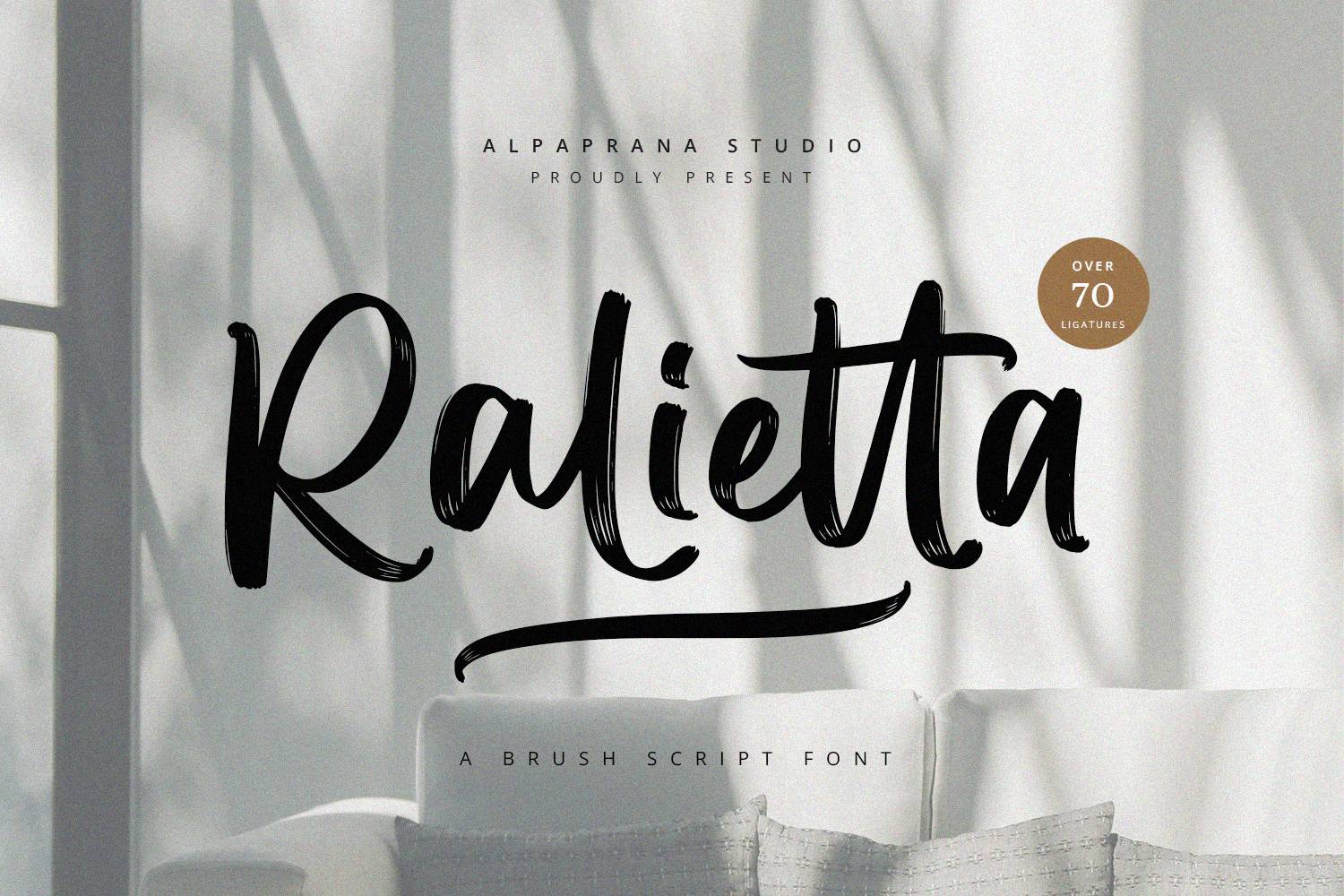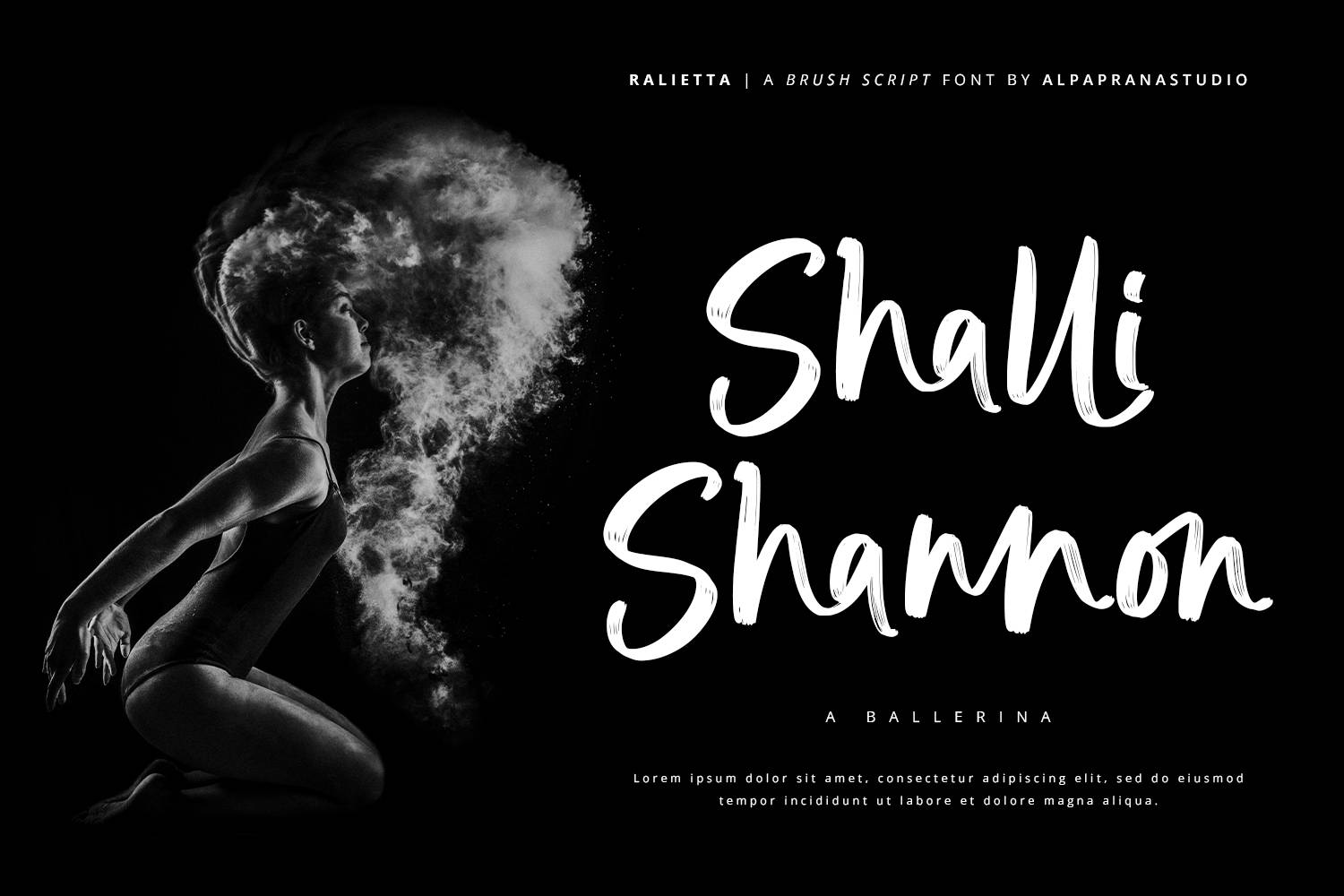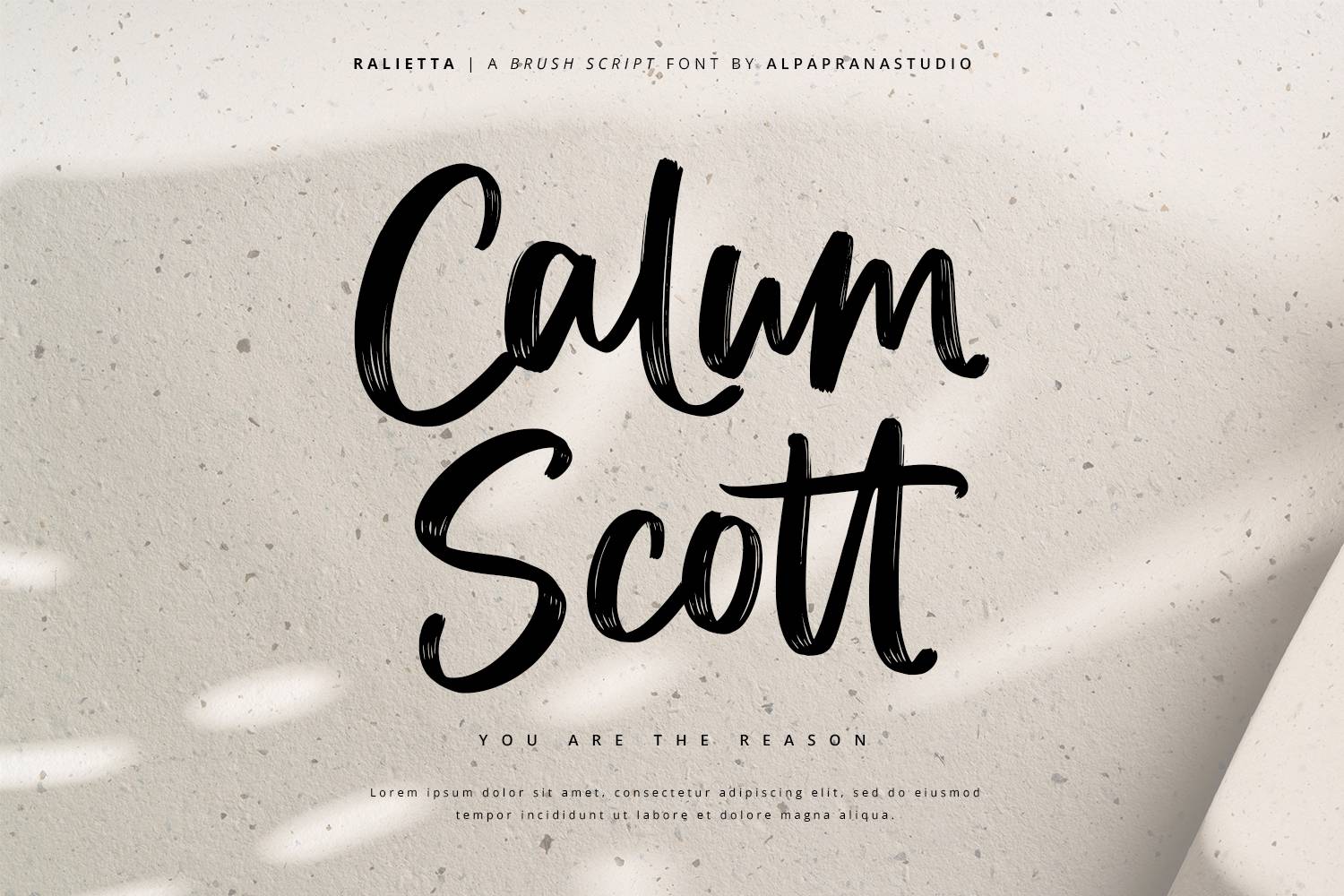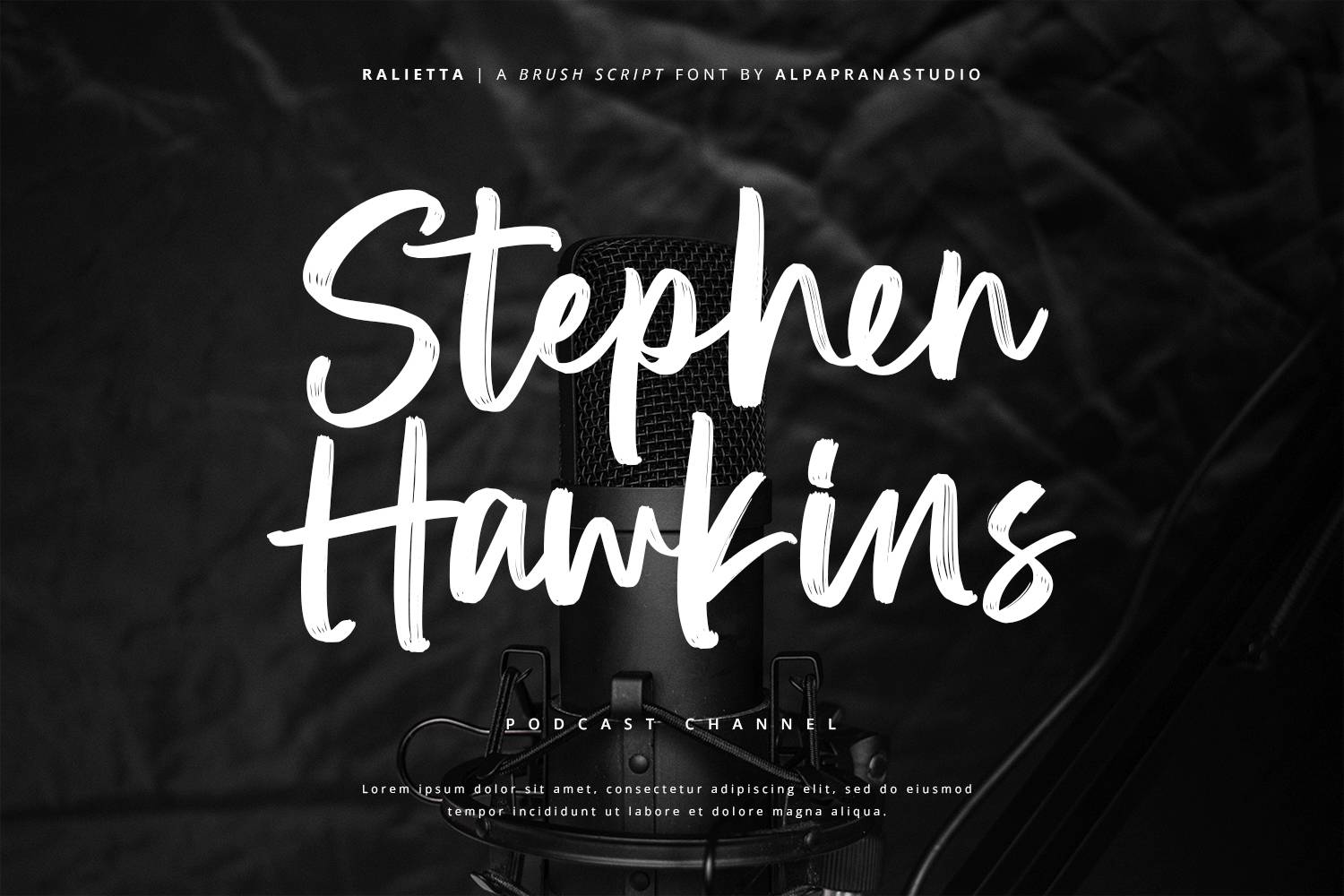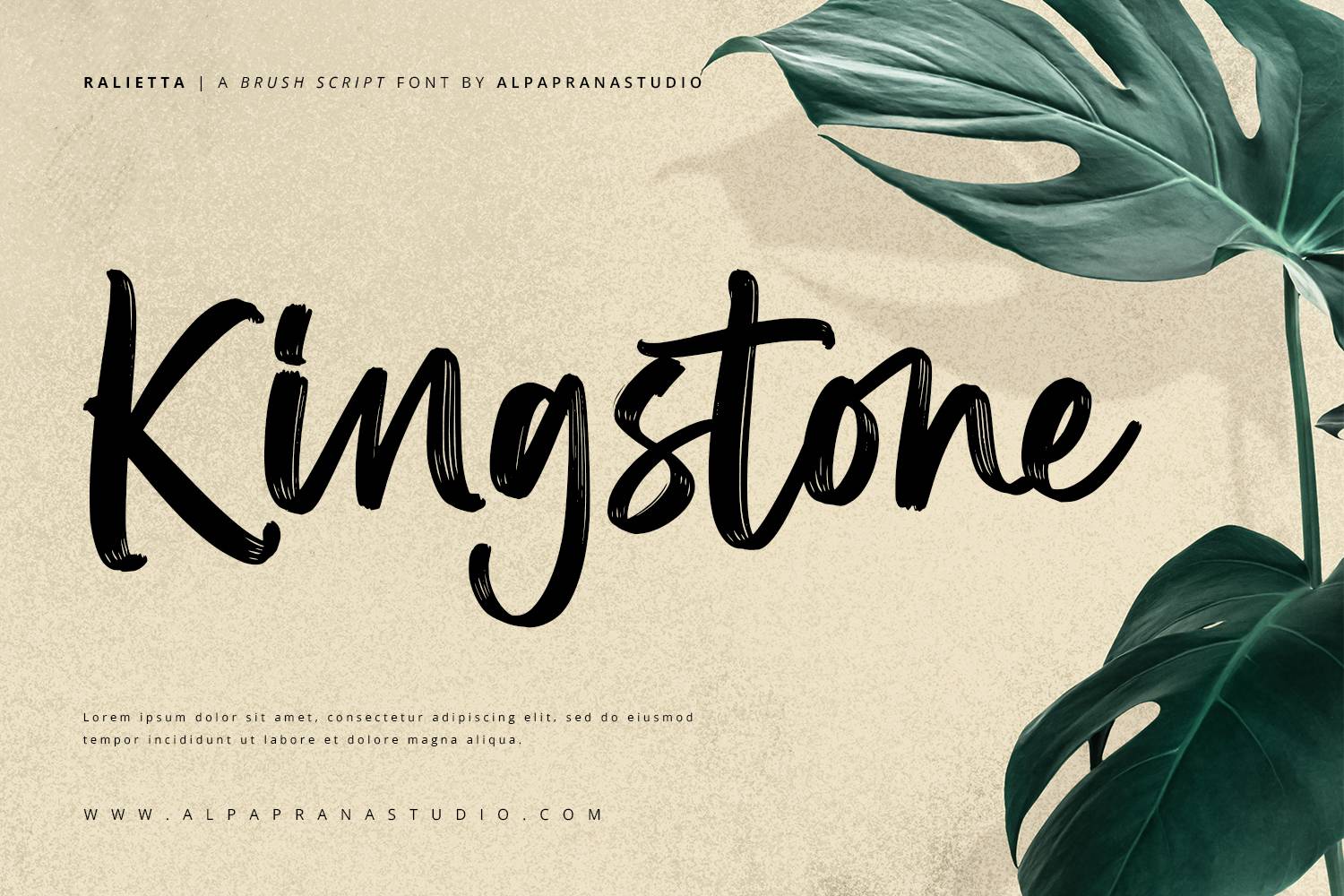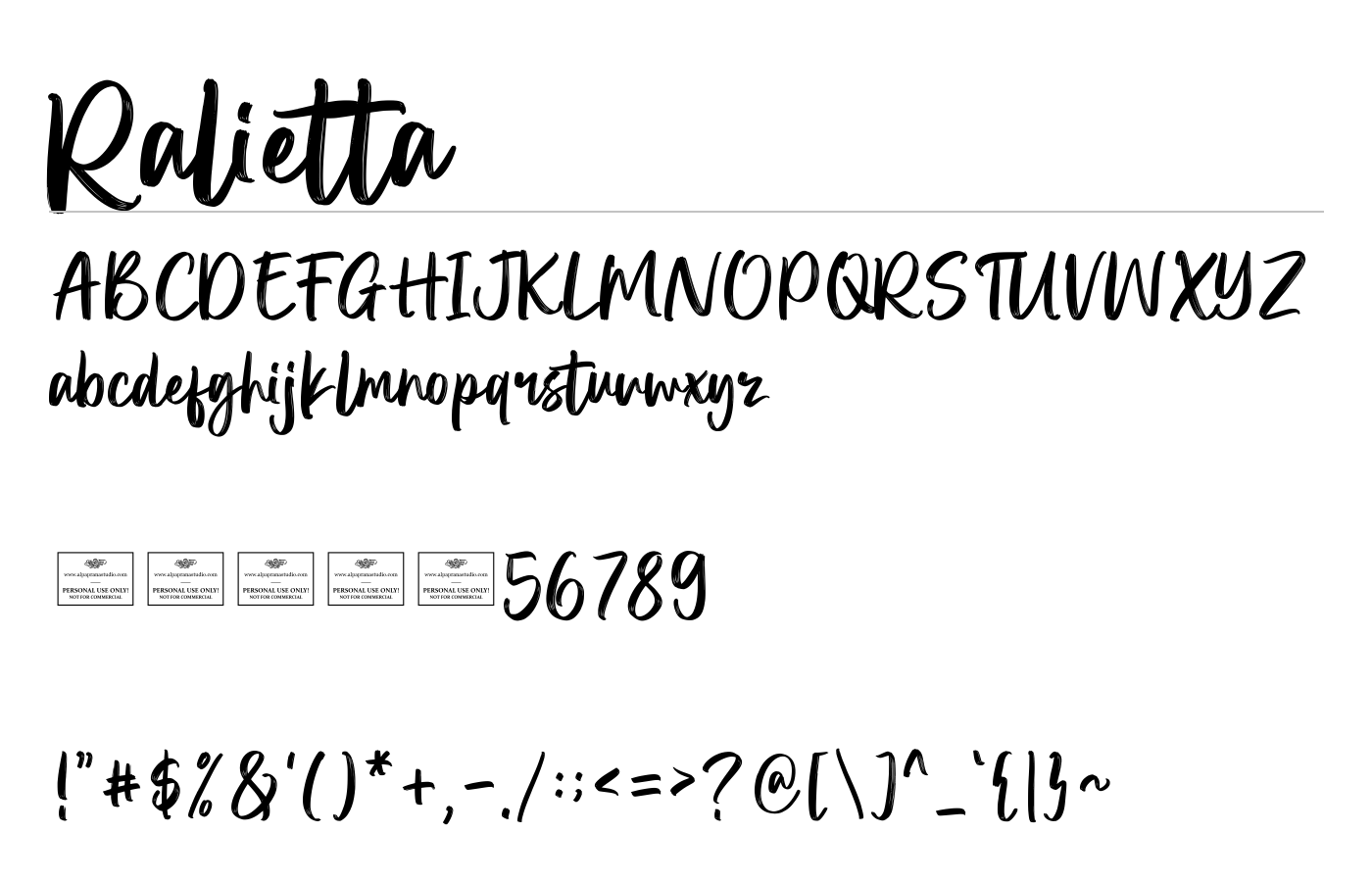
Ralietta is a lively and casual handwritten script font that features smooth, flowing strokes with varied thickness, giving it an organic and expressive feel. Its playful yet readable letterforms make it ideal for creative projects, branding, and invitations where a personal, friendly touch is desired. This font works well in headlines, logos, and social media graphics, adding warmth and personality without sacrificing clarity.
Ralietta Font